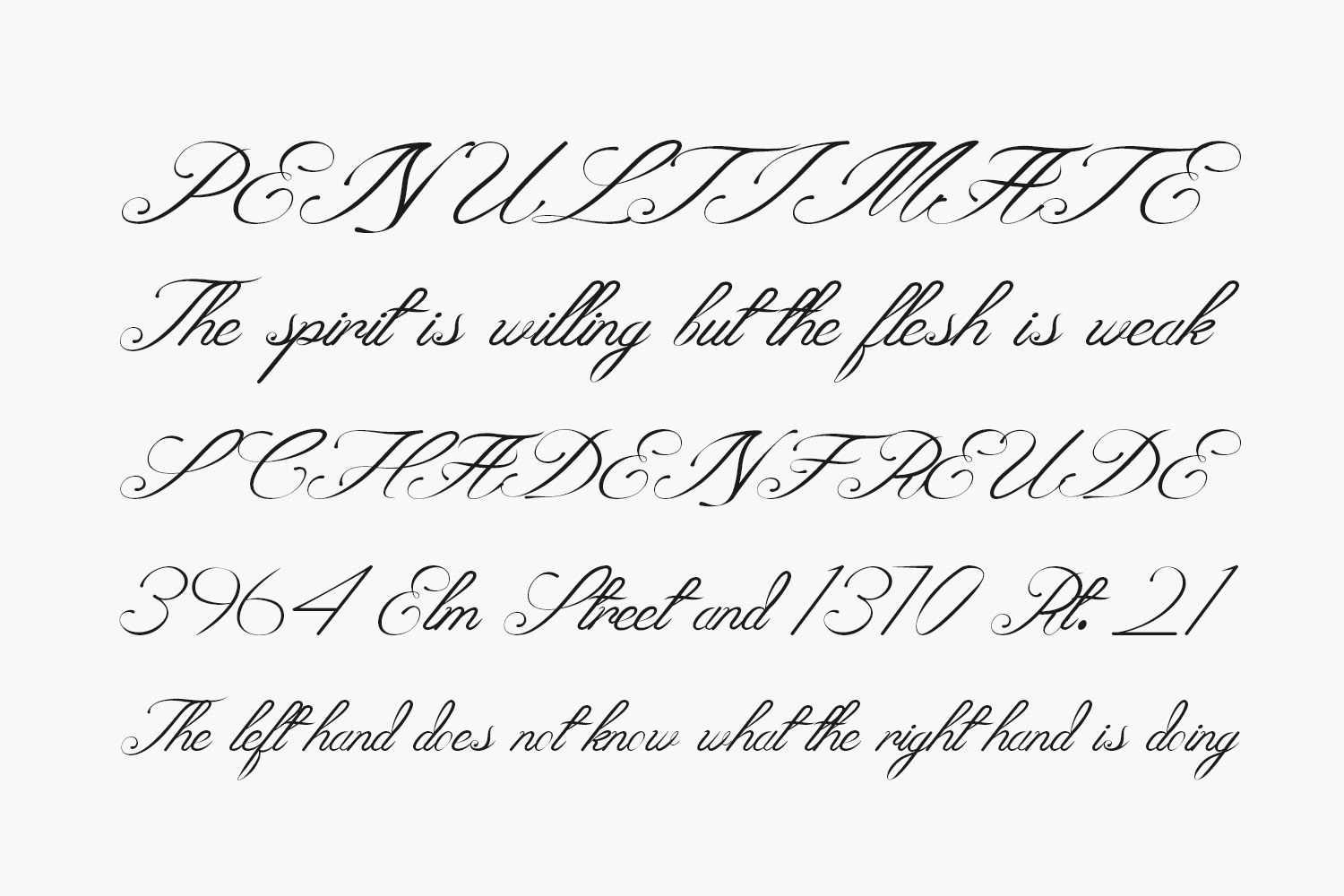
Alviyani Free Font is a modern, elegant and ravishing handwritten font. It will add a luxury spark to any design project that you wish to create, Alviyani Free Font was designed by Irfan Hidayat and is free for personal use only. Please purchase the full version for commercial use.